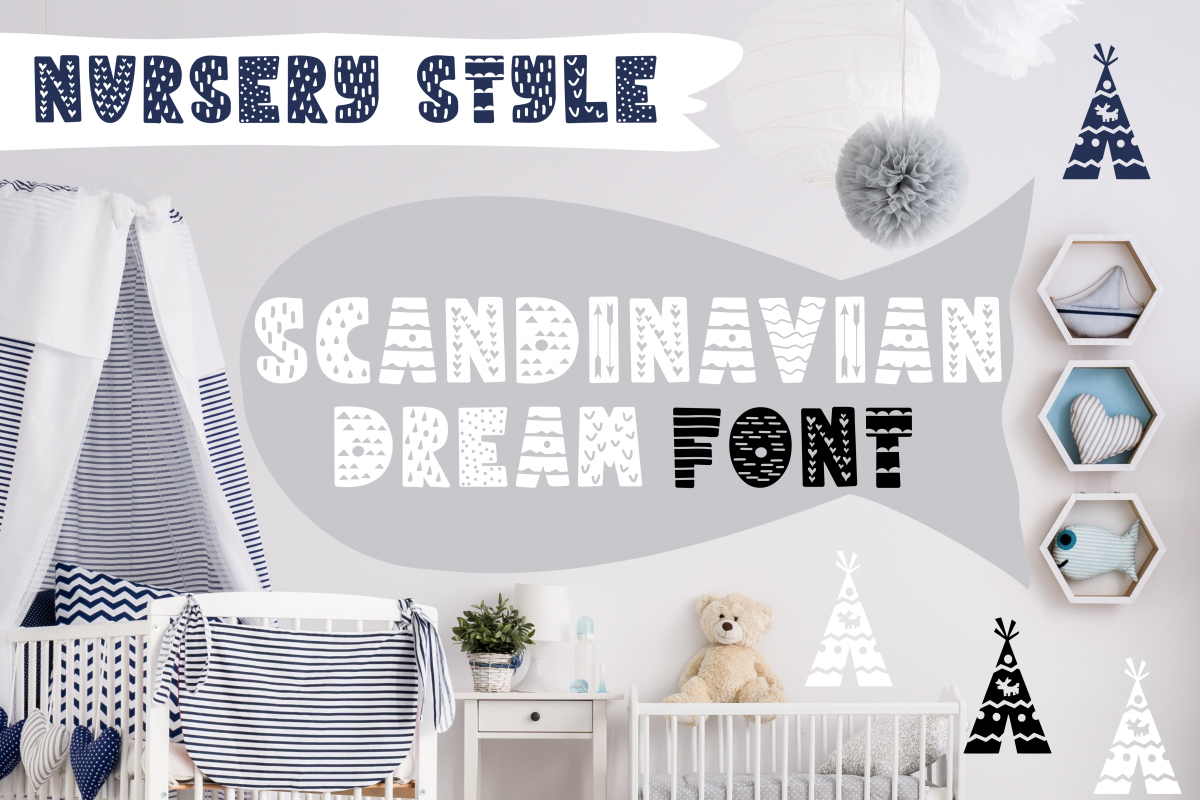
SCANDINAVIAN DREAM FONT
Let me introduce the SCANDINAVIAN DREAM FONT !!!
Designed with love it is so nice for decorating your sweet nursery!
The font is also great for many craft projects: shirts, cards, mugs, home decor and more !!!!
SCANDINAVIAN DREAM FONT